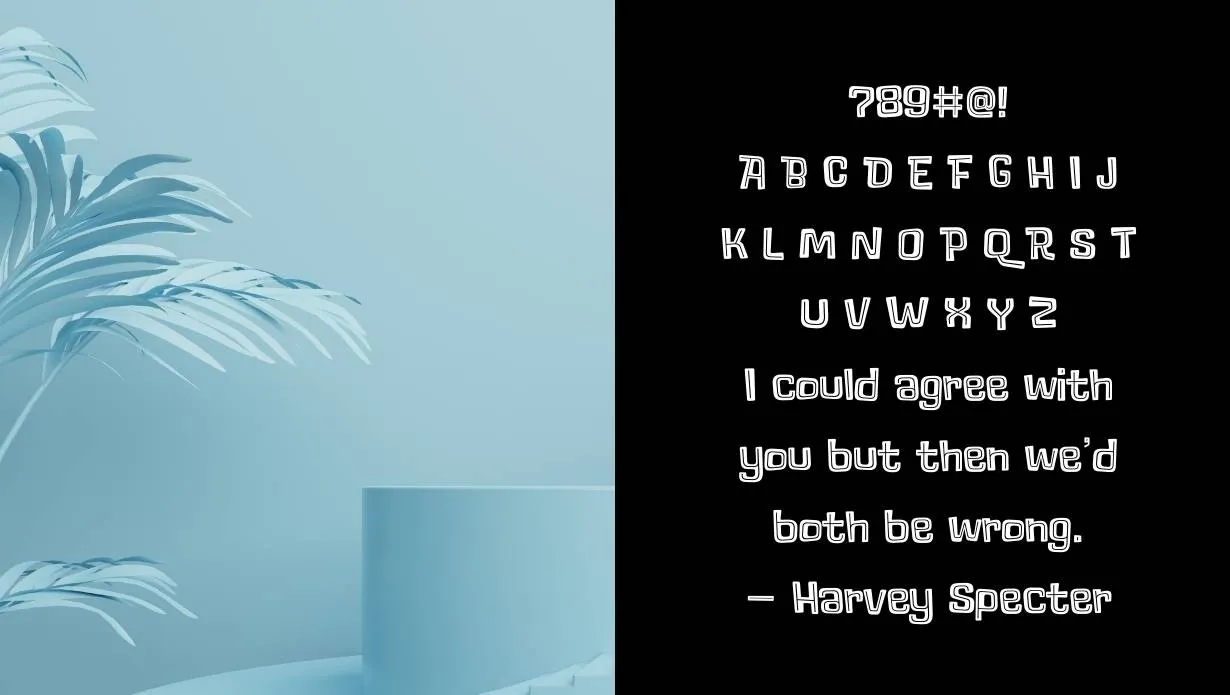
Here, we are going to present a stylish and tremendous typeface named Lollapalooza Font. This cozy font family was designed by the hard work of two designers named Rodrigo Araya Salas and Hector Barroso. These two designers took the charge of designing this cute font.
In the year 2015, this tremendous typeface was released to the general public. After its release, Lollapalooza Font got popular day after day. It comes in 4 outstanding styles and Unique Glyphs. Boogaloo font is most similar to this font family. It is also best for Adobe Photoshop.
Lollapalooza Font Family
| Name | Lollapalooza Font |
| Designer | Rodrigo Araya Salas and Hector Barroso |